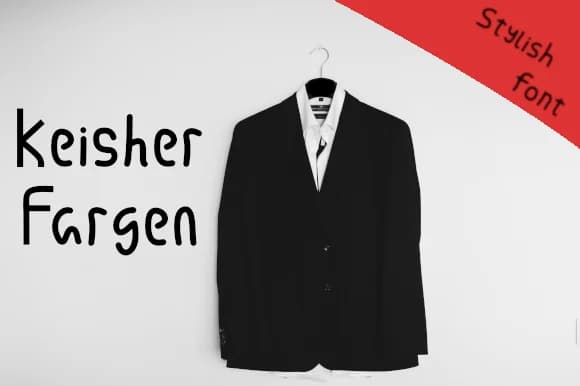
Picture yourself designing a wedding invitation suite where the type needs to feel intimate but still sophisticated. Keisher Fargen Font by Cocoriscranjy handles that balance perfectly. This handwritten script brings casual warmth to contexts that demand polish, without ever feeling overwrought or unnecessarily decorative.
The font excels at projects where you want genuine human touch without sacrificing professionalism or legibility. Greeting card lettering becomes more personal and memorable when set in Keisher Fargen. Product label design for small artisan makers benefits from its warm approachability. Event menu cards set a welcoming, refined tone that makes guests feel genuinely valued. Social media graphics and brand identity materials gain authenticity from its conversational personality. It maintains its character consistently across uses, from short headlines to longer passages of text, and works well on both paper and screen.
What keeps it practical is the range of weights and comprehensive language support, so you can adapt the font to different project needs without losing visual coherence or personality. The alternates give you flexibility if you want to add subtle variation to repeated letterforms. Keisher Fargen works equally well across digital design and print workflows, maintaining its charm at any scale. Find it on Creative Fabrica and start exploring what this font can do for your next project.
Keisher Fargen Font is a script font that shines as a display or heading face. Pair it with a clean sans-serif or serif font for body text β the contrast creates a clear hierarchy while the two styles stay balanced and easy to read.